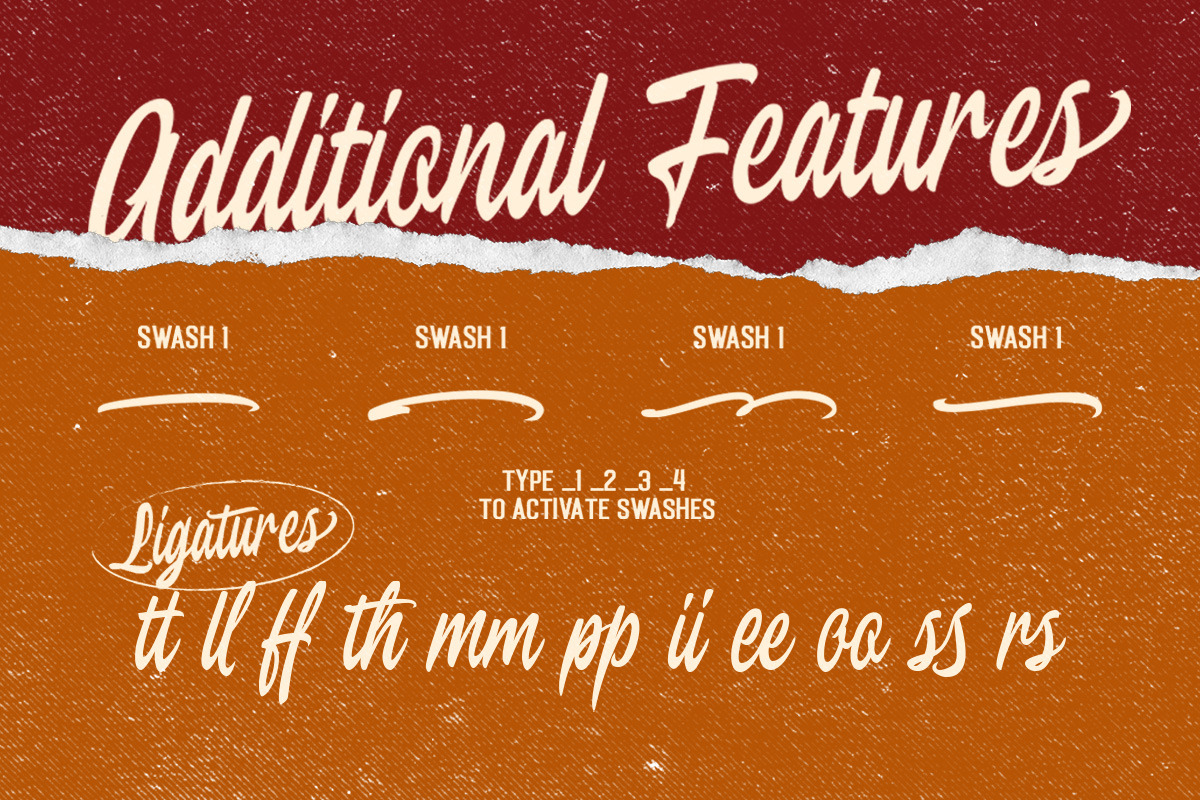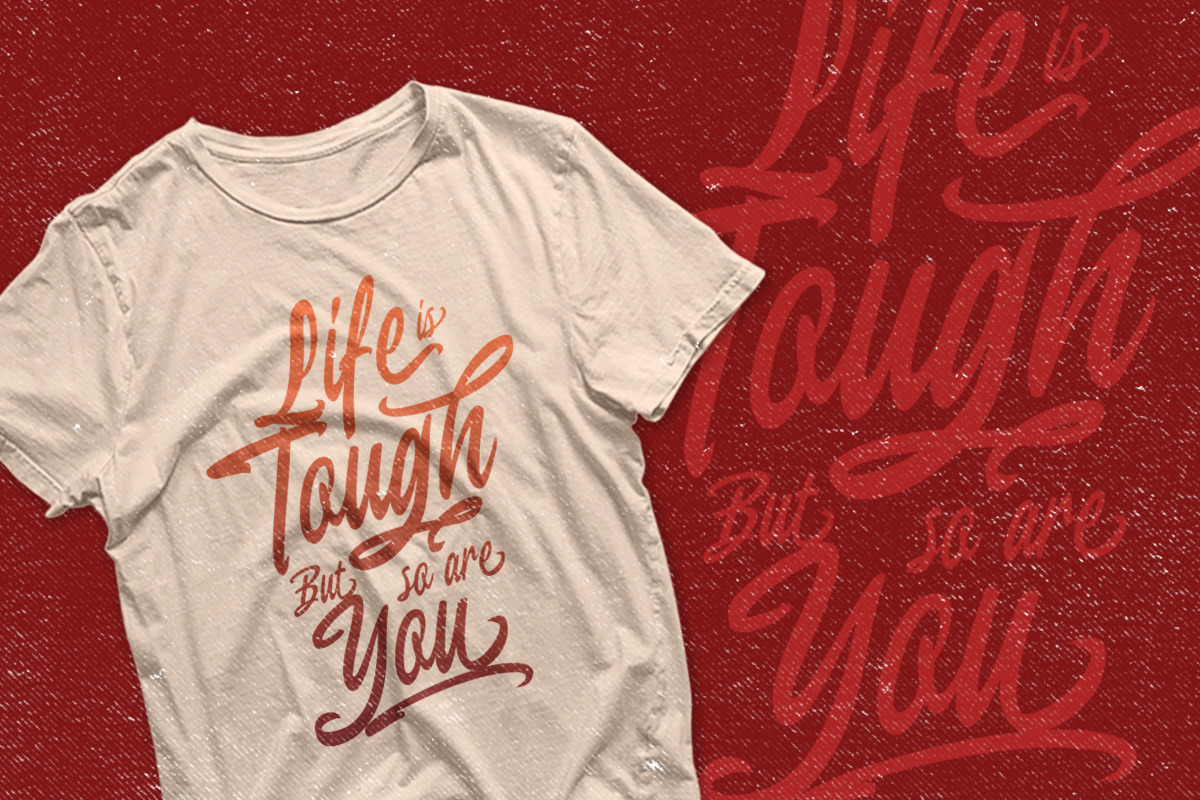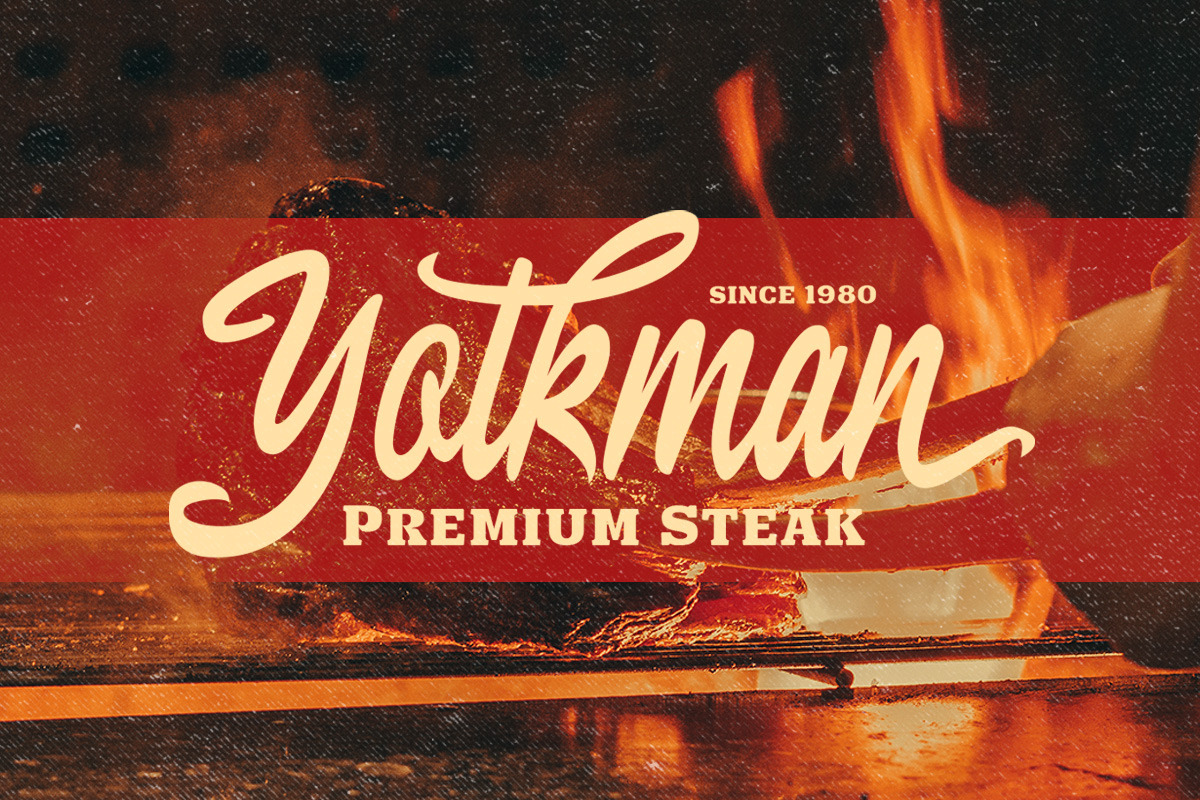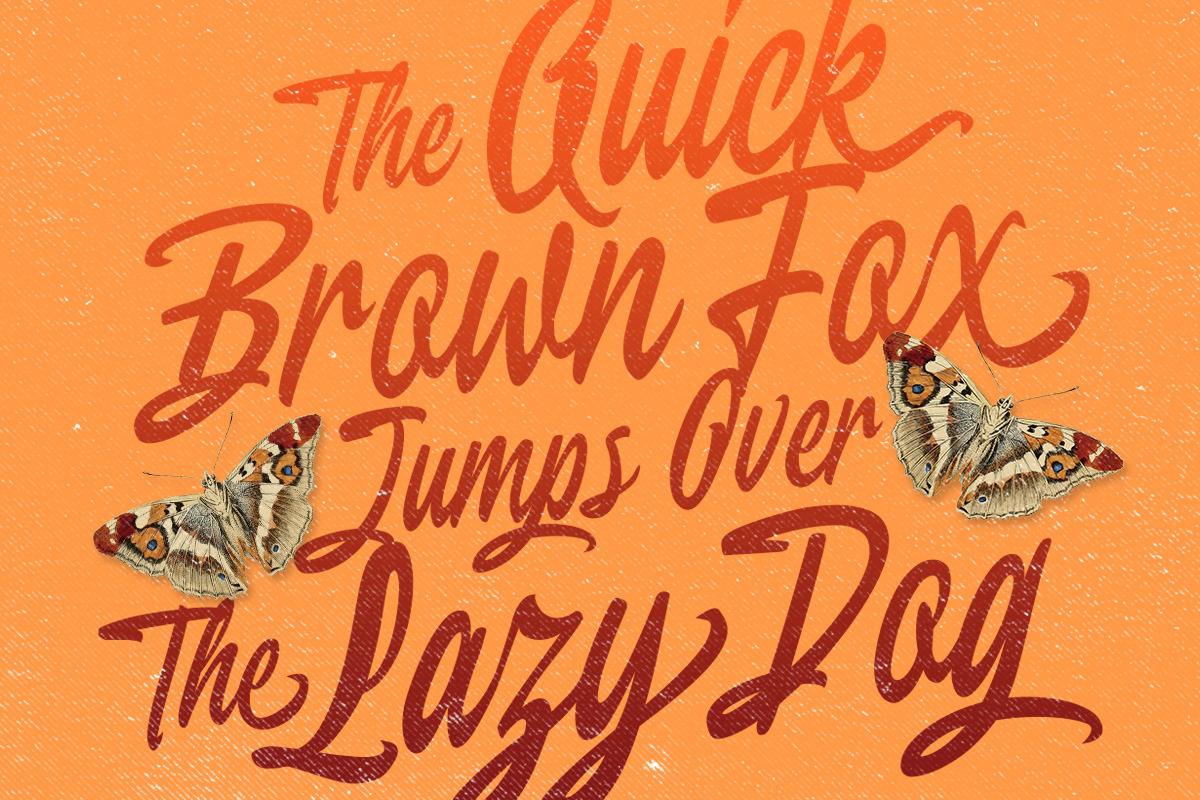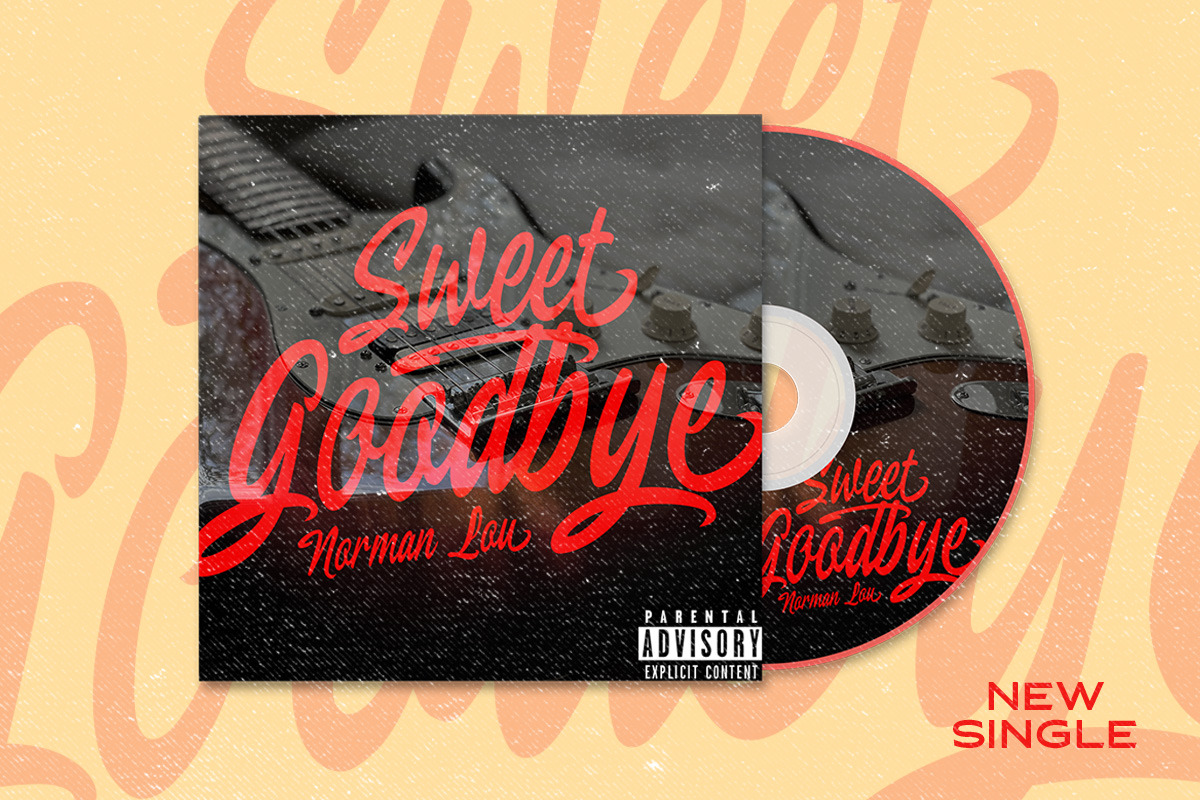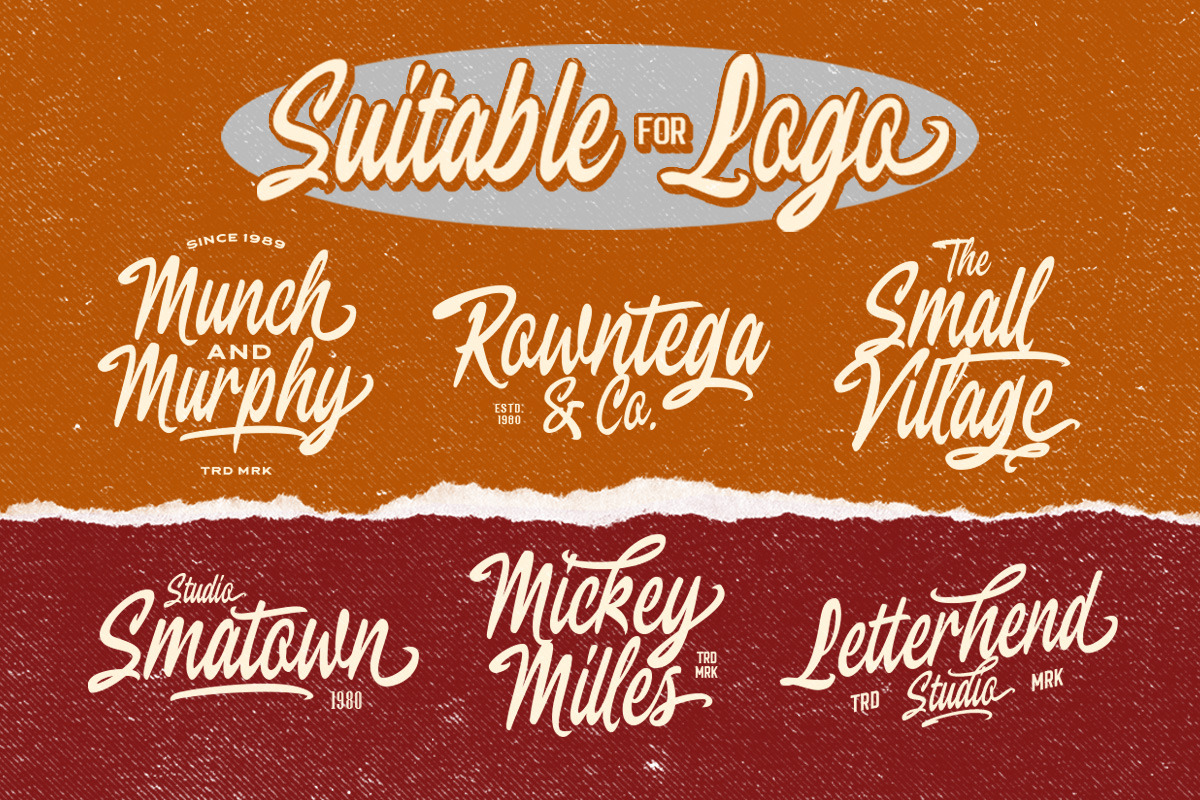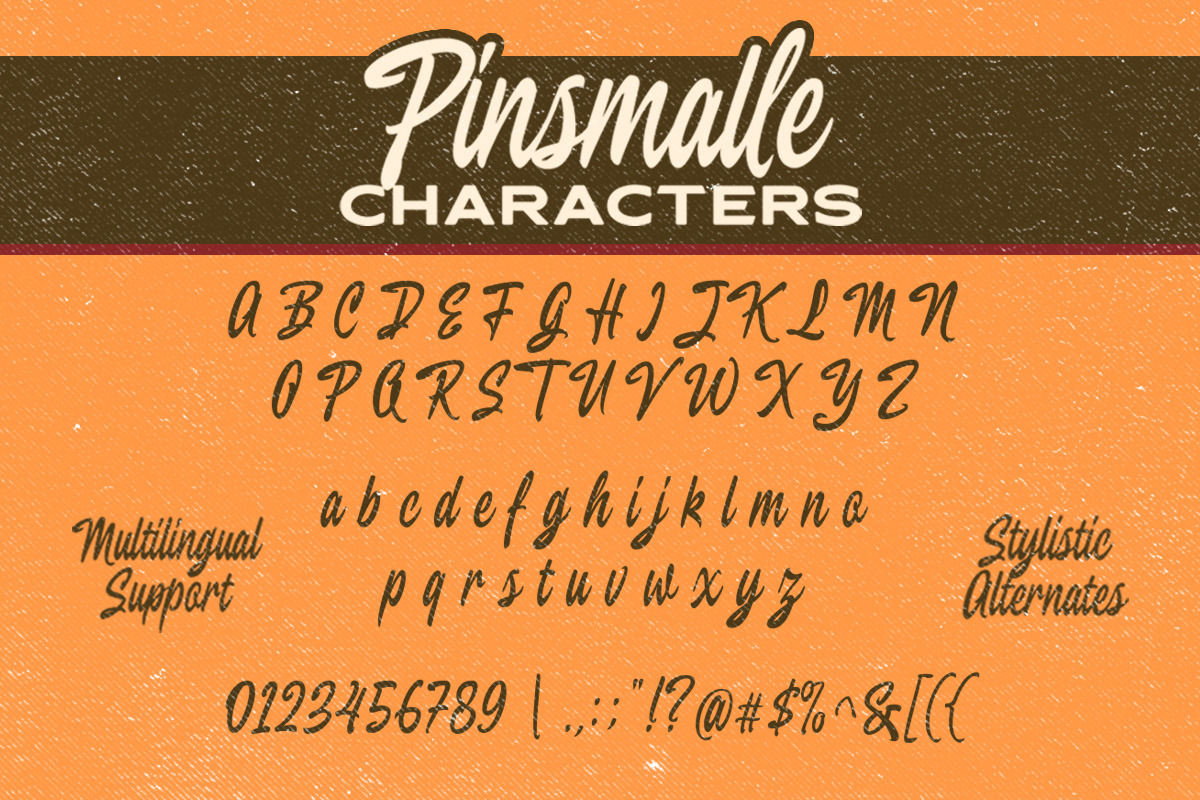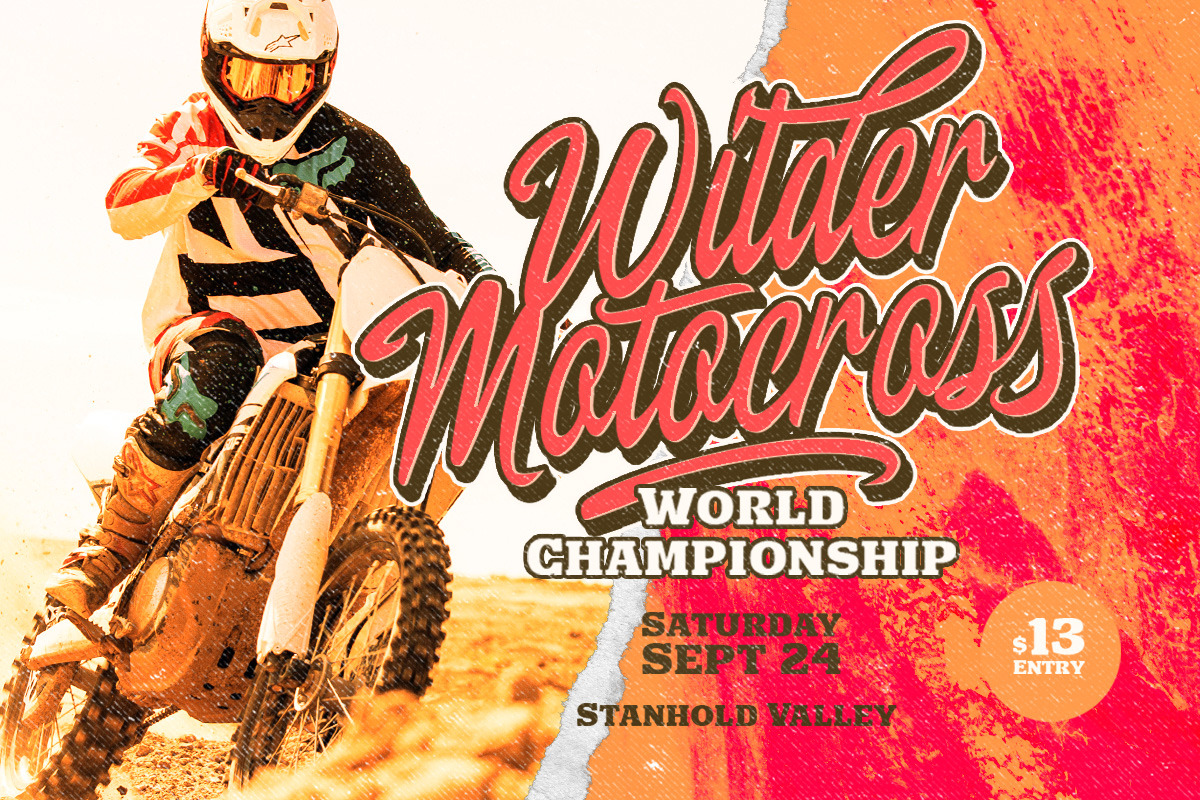
Pinsmalle - Vintage Script
Pinsmalle script is a retro bold script with a touch of vintage look and feel. The swashes makes this font looks great for retro lettering which you can create in a sec! This type of font perfectly made to be applied especially in logo, headline, signage and the other various formal forms such as invitations, labels, logos, magazines, books, greeting / wedding cards, packaging, fashion, make up, stationery, novels, labels or any type of advertising purpose.
- alternates / swashes and ligatures